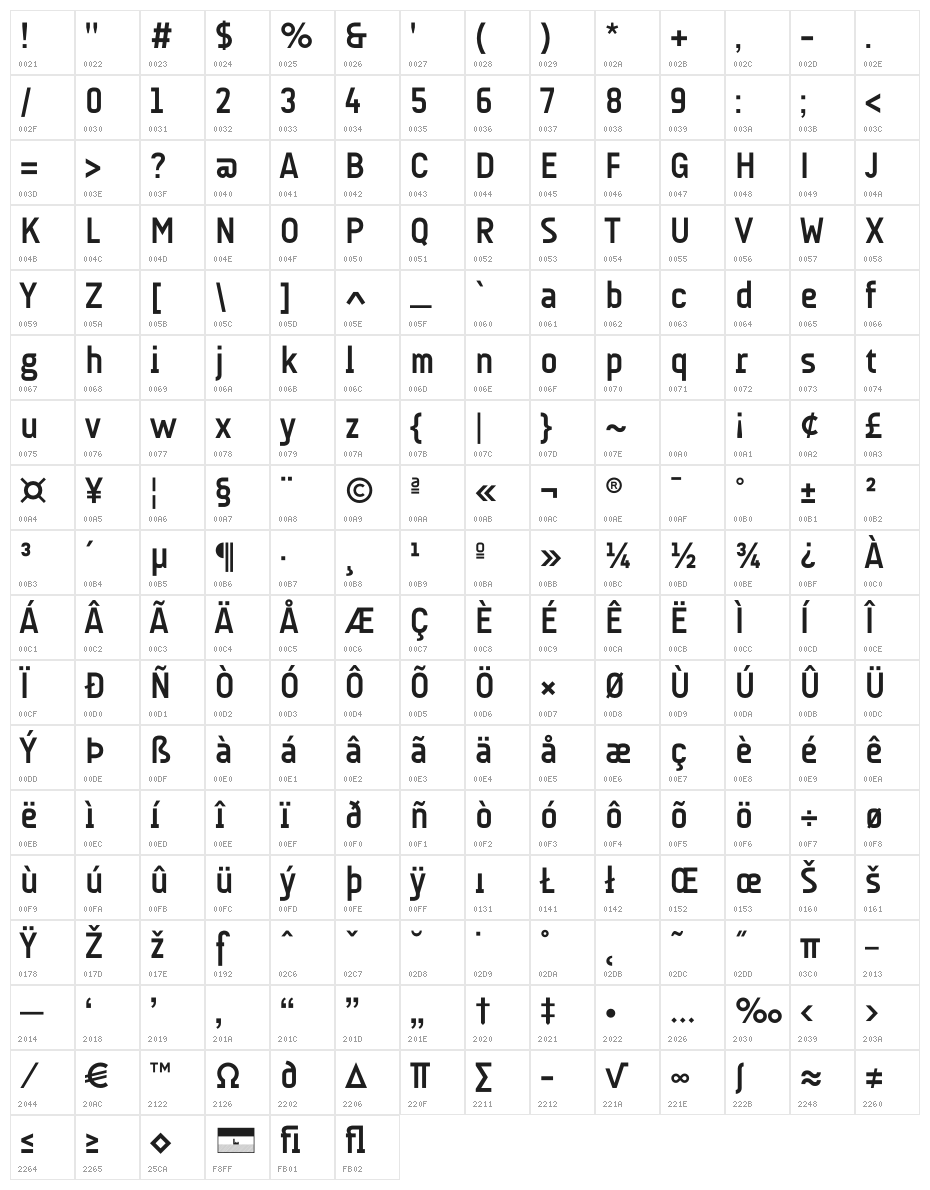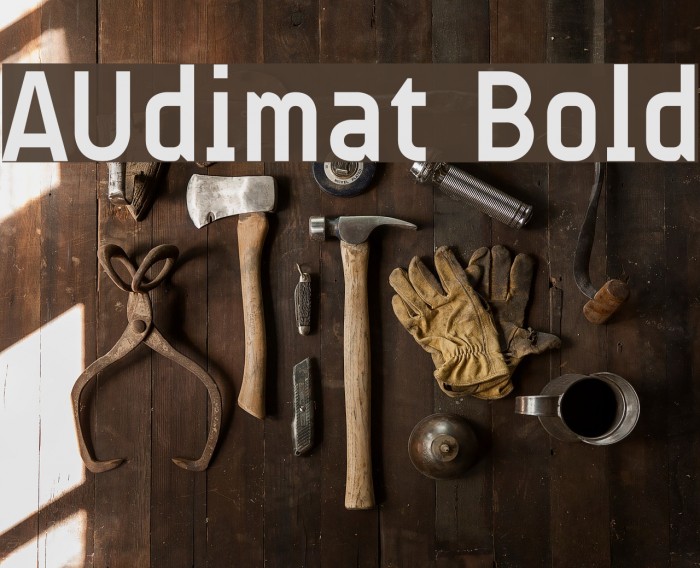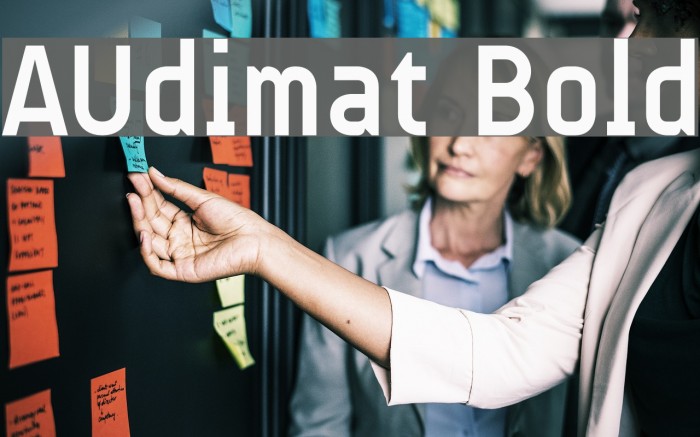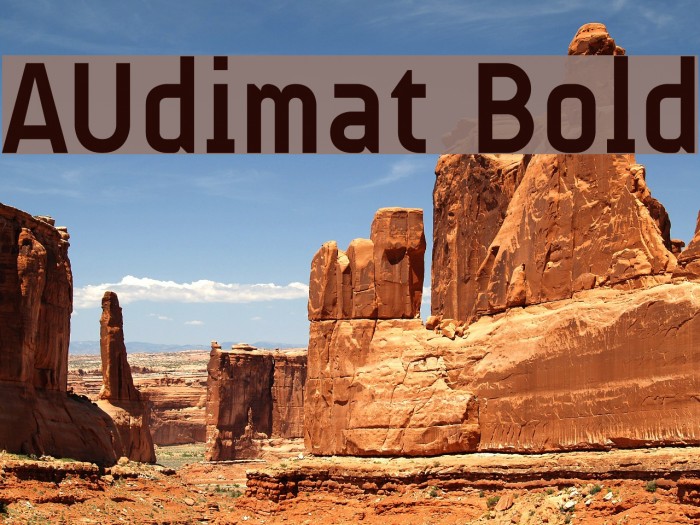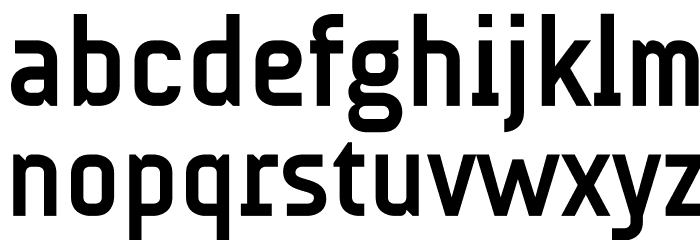
AUdimat Bold Font
✎ Sans Serif
AUdimat Bold Description
This font exhibits a bold and modern sans-serif style, characterized by clean lines and a strong geometric structure. The uppercase and lowercase letters maintain a consistent height, contributing to a uniform appearance. The numerals are clear and easy to read, while the special characters are distinct and well-defined. The overall design is straightforward, making it suitable for a variety of applications where clarity and impact are essential.
| Use Case | Headlines, Logos, Signage |
| Proposed Projects | Ideal for branding, signage, headlines, and digital interfaces where clarity and impact are crucial. |